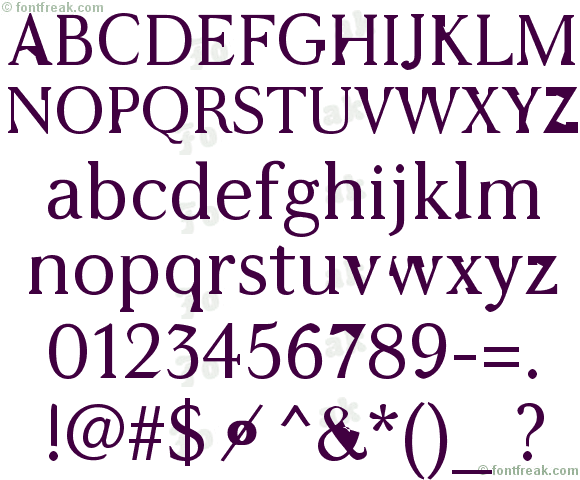
WC ADDENDUM Bta light
WC ADDENDUM Bta light — Character Map
About WC Addendum
WC Addendum, designed by Christophe Féray, is a stunning display font that blends modern aesthetics with classic elegance. As a part of the serif category, it showcases a unique gracefulness that makes it an exceptional choice for various design projects. The font features a refined stroke weight, offering a harmonious balance between boldness and delicacy. Its moderate contrast enhances readability while adding a sophisticated touch. With generous spacing between characters, WC Addendum maintains clarity, making it suitable for both print and digital applications.
This font shines in a variety of contexts. Its elegant style makes it a perfect fit for wedding invitations, where it can evoke a sense of romance and formality. Additionally, WC Addendum is an excellent choice for movie posters, lending an air of sophistication that draws attention. It also works beautifully in restaurant menus, where it can elevate the dining experience by creating a visually appealing layout. For graphic designers and content creators looking to make an impact, this font can be used in branding materials, ensuring a memorable presentation.
What sets the WC Addendum font apart is its ability to marry traditional serif characteristics with a contemporary flair. This versatility allows it to adapt seamlessly across various design applications while retaining a unique personality. By opting for the WC Addendum font free download, you are choosing a typeface that not only elevates your projects but also stands as a testament to thoughtful design.